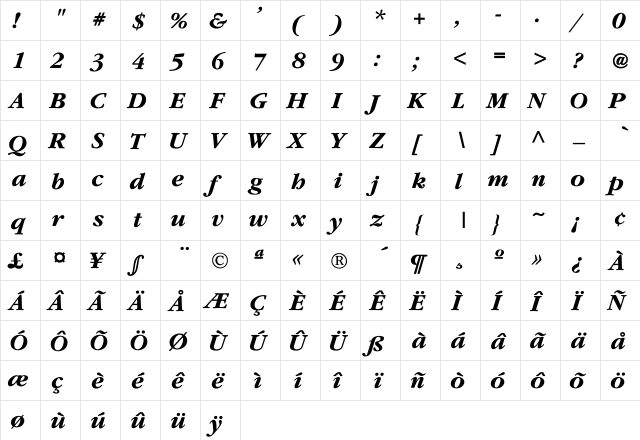
Malek-BoldItalic Regular
Design Context for Malek-BoldItalic Typeface
Malek-BoldItalic offers clean, dependable letterforms without strong stylistic allegiance, making it a practical choice for designers who need flexibility. The dynamic lean of this cut emphasises speed and emphasis in any layout. The heavy weight commands attention and anchors typographic hierarchies.
Pro Tip: Use Malek-BoldItalic for emphasis, pull quotes, and subheadings where its slanted energy can add rhythm to the layout.